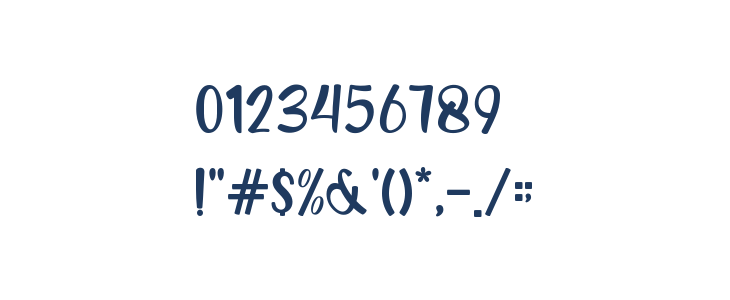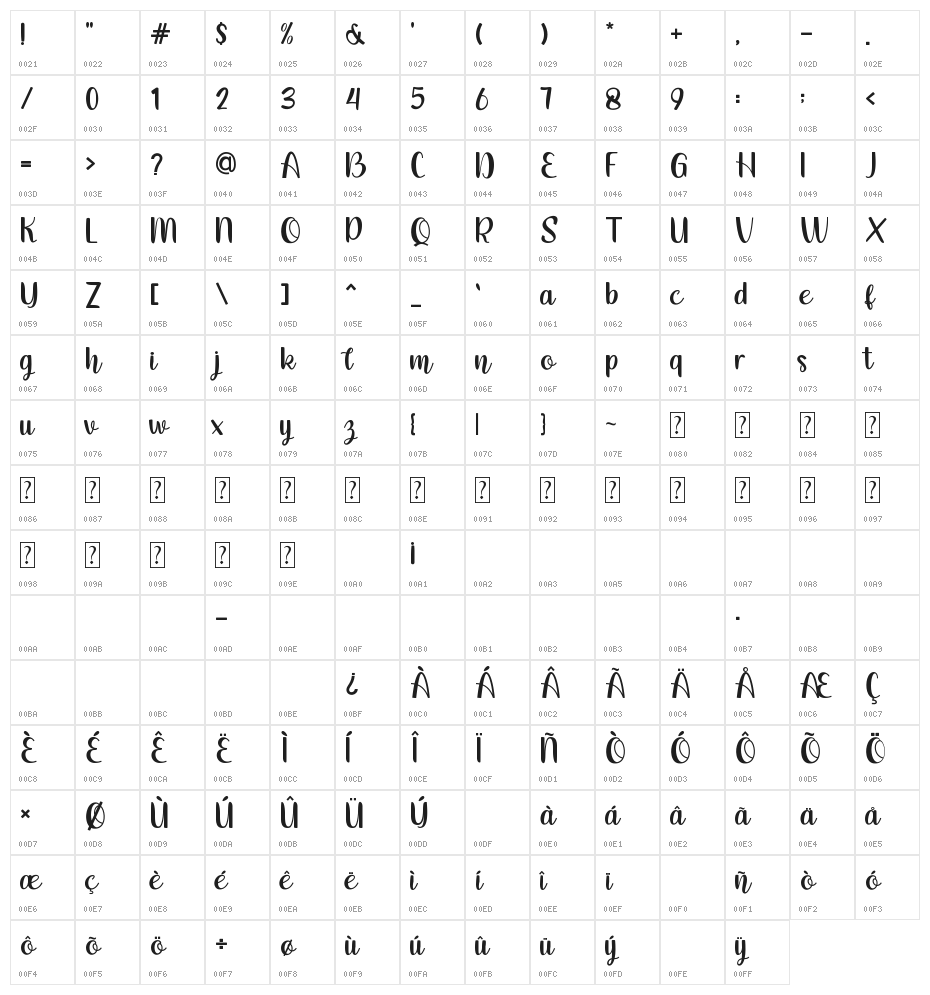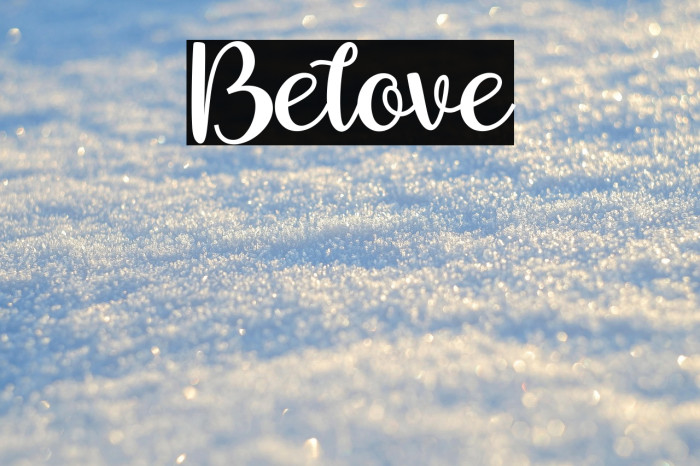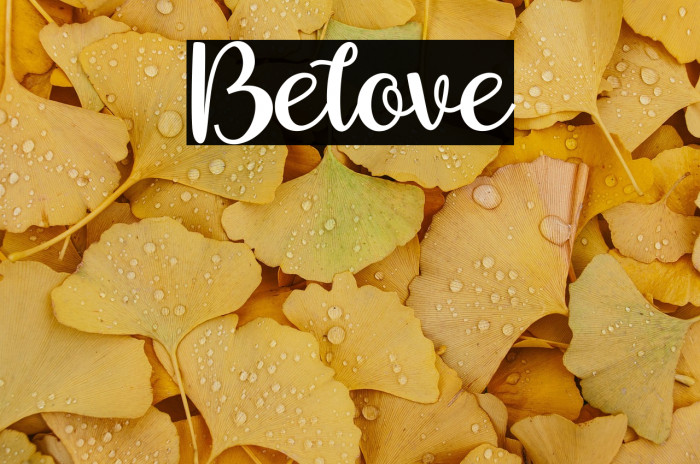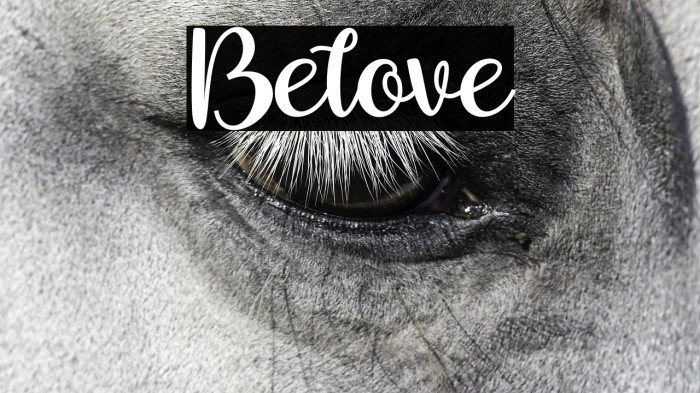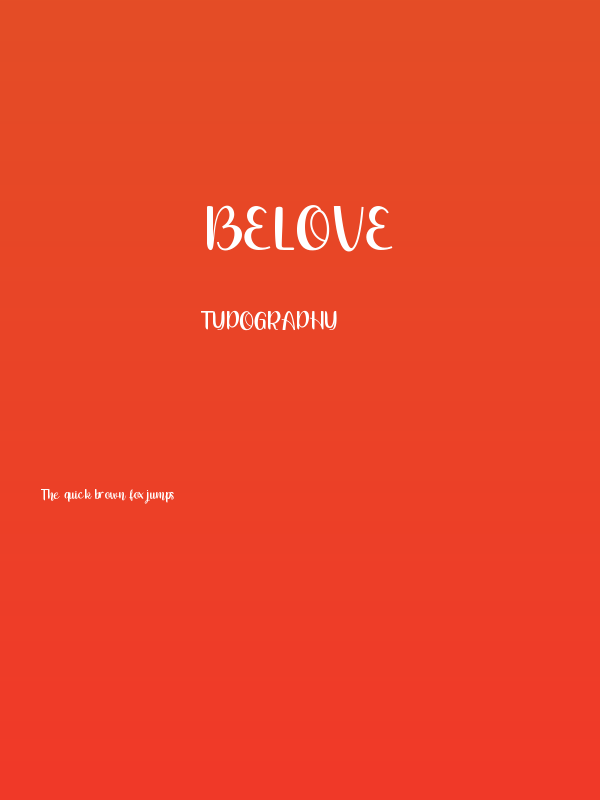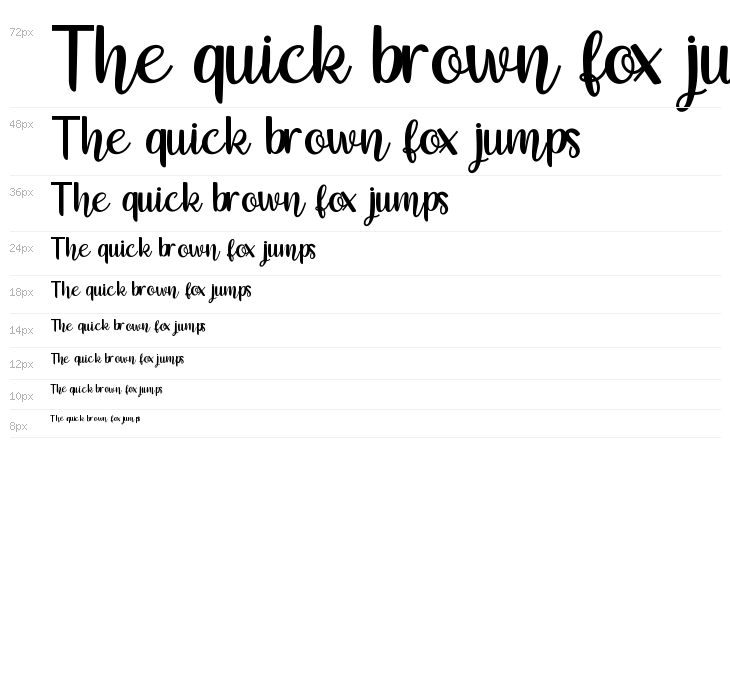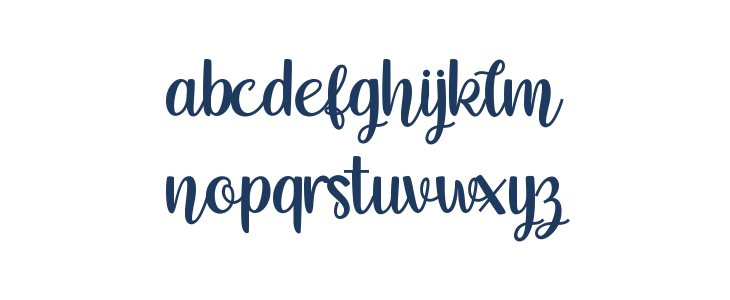
Belove Font
Belove Description
This font features a playful and whimsical style with a handwritten appearance. The letters are characterized by smooth, flowing curves and a slight slant, giving it a dynamic and lively feel. The uppercase letters are bold and prominent, while the lowercase letters maintain a consistent flow with elegant loops and swashes. The numbers are clear and easy to read, matching the overall playful aesthetic. Special characters are well-integrated, maintaining the font's cohesive style. This font is perfect for projects that require a personal touch or a creative flair.
| Proposed Projects | Ideal for greeting cards, invitations, personal branding, and creative projects. |